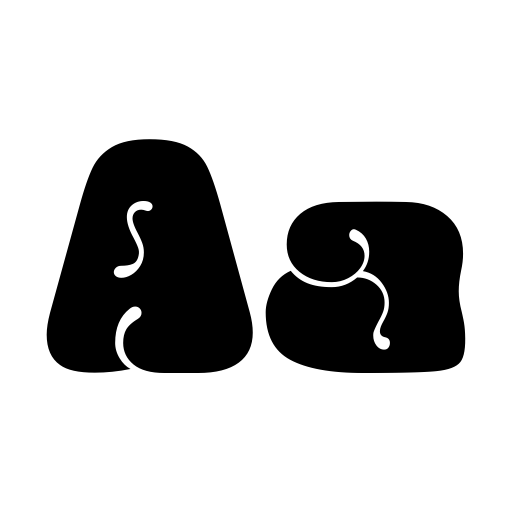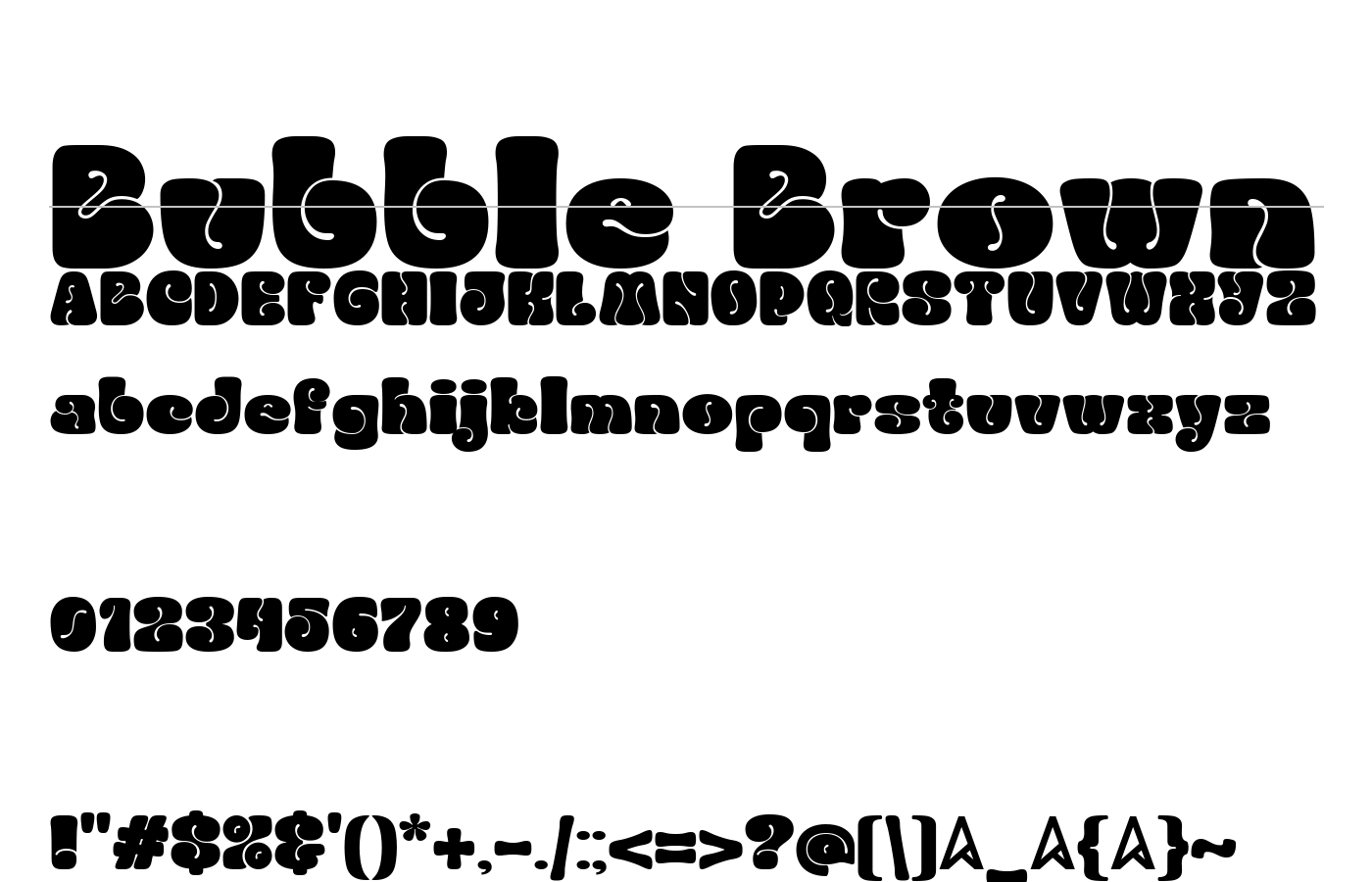
Bubble Brown Font is a bold, rounded display typeface with a playful and chunky design that radiates fun and creativity. Its thick, bubble-like forms and soft curves make it ideal for eye-catching headlines, logos, and branding that want to convey a lively, retro-inspired, and approachable vibe. This font works wonderfully in contexts like children's products, casual party invitations, or any design needing a friendly and whimsical touch.
Bubble Brown Font
About Bubble Brown Font